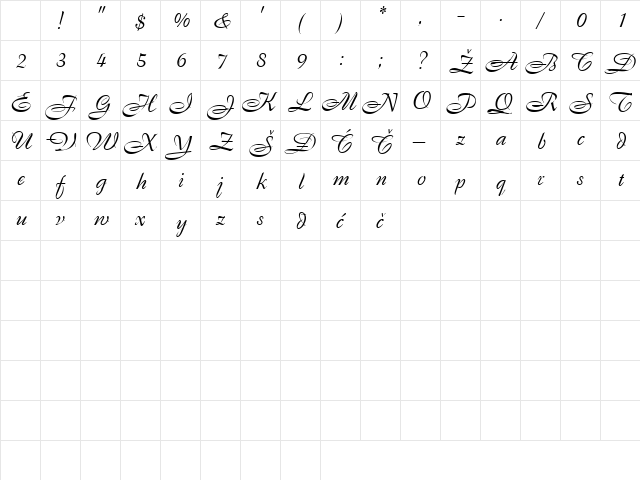
Complete Boulevard A glyph index. Displaying only characters natively supported by Boulevard A font.
Boulevard is a composed and adaptable typeface that performs quietly and consistently across a wide range of design contexts.